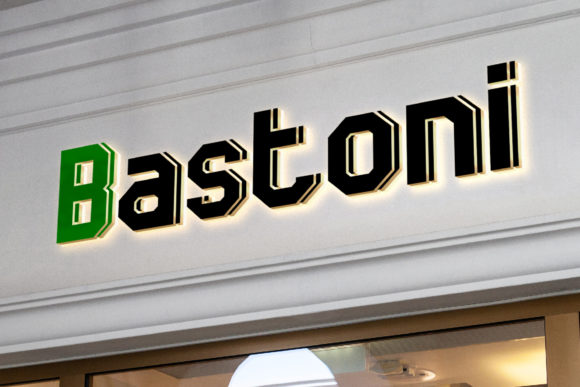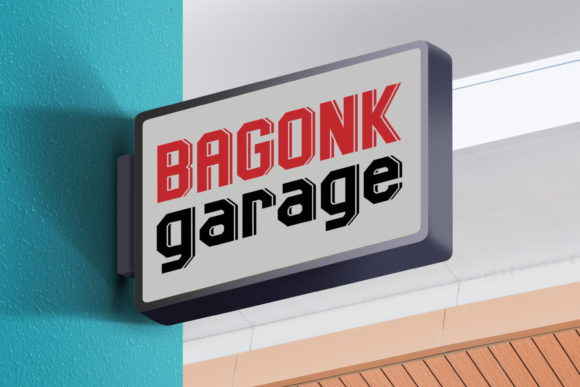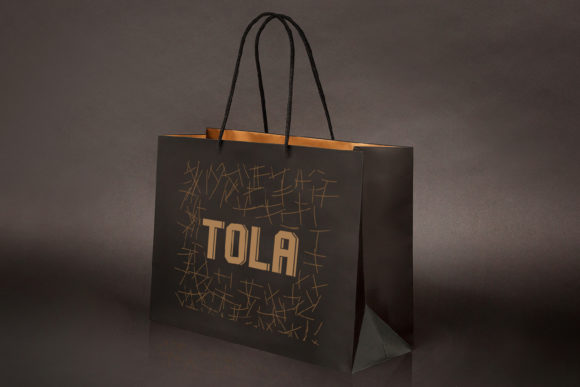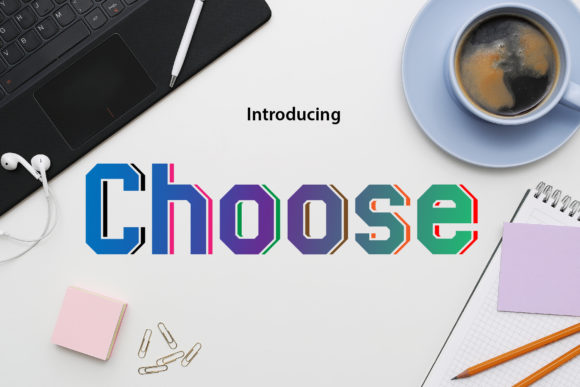
Introducing Choose Font: Elevate Your Designs with a Futuristic Twist
In the realm of typography, fonts play a pivotal role in shaping the visual identity of a design. With an array of fonts available, selecting the right one can be a daunting task. However, if you’re looking to add a touch of futurism and uniqueness to your designs, look no further than the Choose Font. This incredibly futuristic and unique display font is designed to celebrate abstract shapes in all their eclectic beauty, making it an excellent addition to your typography arsenal.
What Makes Choose Font Stand Out?
The Choose Font is not just another addition to the vast world of typography; it’s a statement piece. Its design is centered around abstract shapes that are both futuristic and captivating. Each letterform is crafted to embody a sense of eclecticism, ensuring that your designs stand out in a crowd. Whether you’re working on a branding project, a website, or any digital content, this font is sure to leave a lasting impression.
Key Features of Choose Font
- Futuristic Design: The Choose Font boasts a futuristic design that will instantly elevate your projects. Its unique approach to typography ensures that your work looks modern and forward-thinking.
- Abstract Shapes: Emphasizing abstract shapes, this font brings a level of sophistication and uniqueness to your designs. The shapes are carefully crafted to ensure they are both visually appealing and meaningful.
- Eclectic Beauty: The eclectic nature of the Choose Font means it can be used across a variety of projects. From digital media to print, its versatility ensures it can adapt to any design requirement.
- Display Font: As a display font, Choose is particularly suited for headlines, titles, and any area of your design where you want to make a statement.
How to Use Choose Font in Your Designs
Incorporating the Choose Font into your projects is straightforward. Here are a few tips to get you started:
- Pair with Simpler Fonts: For optimal readability, consider pairing the Choose Font with simpler, more traditional fonts for body text.
- Experiment with Sizes and Colors: Don’t be afraid to experiment with different sizes and colors. The Choose Font’s unique design means it can be scaled up or down without losing impact.
- Use in Key Areas: Reserve the Choose Font for key areas of your design, such as titles, headings, or any text you want to stand out.
Why Designers and Crafters Love Choose Font
Designers and crafters are always on the lookout for fonts that can help their work stand out. The Choose Font has quickly become a favorite among creatives for several reasons:
- Uniqueness: In a sea of similar fonts, Choose offers something different. Its unique design ensures that projects don’t look generic.
- Versatility: Whether you’re working on a digital project or a print-based one, the Choose Font adapts well, making it incredibly versatile.
- Expressiveness: The font’s design allows for a high level of expressiveness, enabling designers to convey their message in a visually compelling way.
The Choose Font is more than just a typography option; it’s a design statement. Its futuristic and unique approach to abstract shapes makes it an invaluable tool for designers and crafters looking to push the boundaries of their work. By incorporating the Choose Font into your projects, you’re not just choosing a font; you’re choosing to make a statement. So, why settle for ordinary when you can make your designs stand out with the Choose Font?